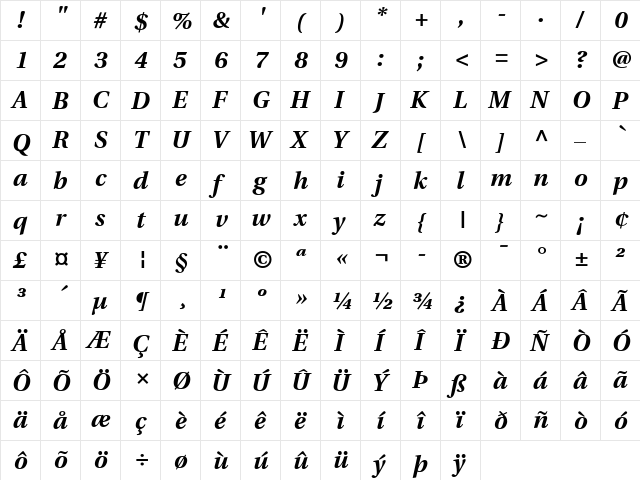
Utopia Bold Italic
Design Context for Utopia Bold Typeface
Utopia Bold is a composed and adaptable typeface that performs quietly and consistently across a wide range of design contexts. Its italic angle brings a sense of urgency and motion to the letterforms. The heavy weight commands attention and anchors typographic hierarchies.
Pro Tip: Try Utopia Bold for annotation and caption copy alongside an upright companion — the contrast in angle creates a dynamic but ordered typographic system.